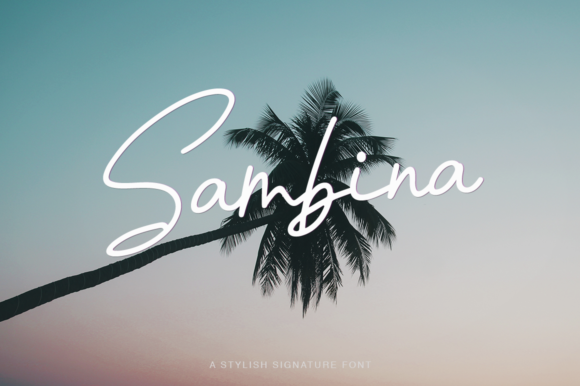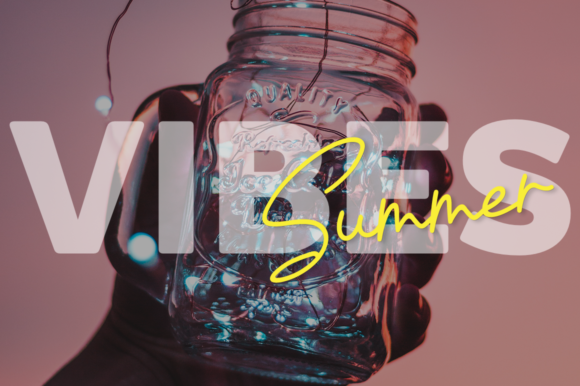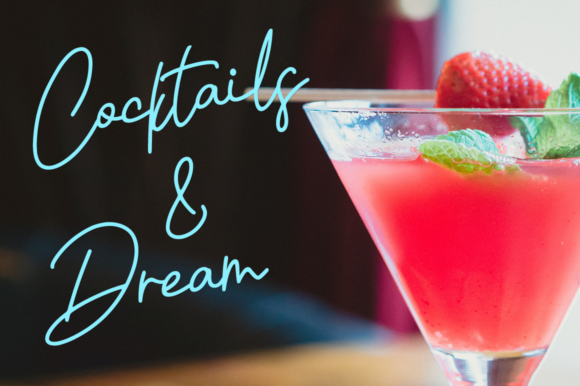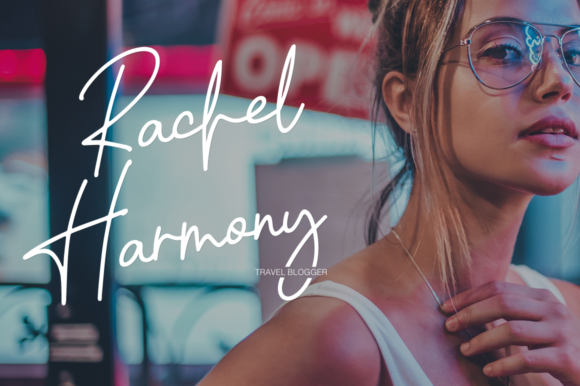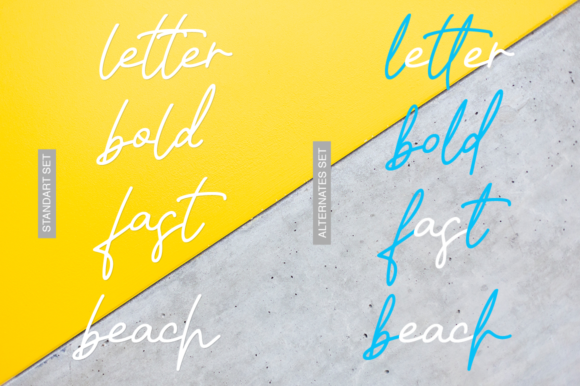
Sambina Font
About Sambina Font
Sambina is a fresh, handmade calligraphy font.
It’s the ideal font for branding and decorating projects. It’s perfect for wedding invites as well and will really help adding a personal touch to your designs.